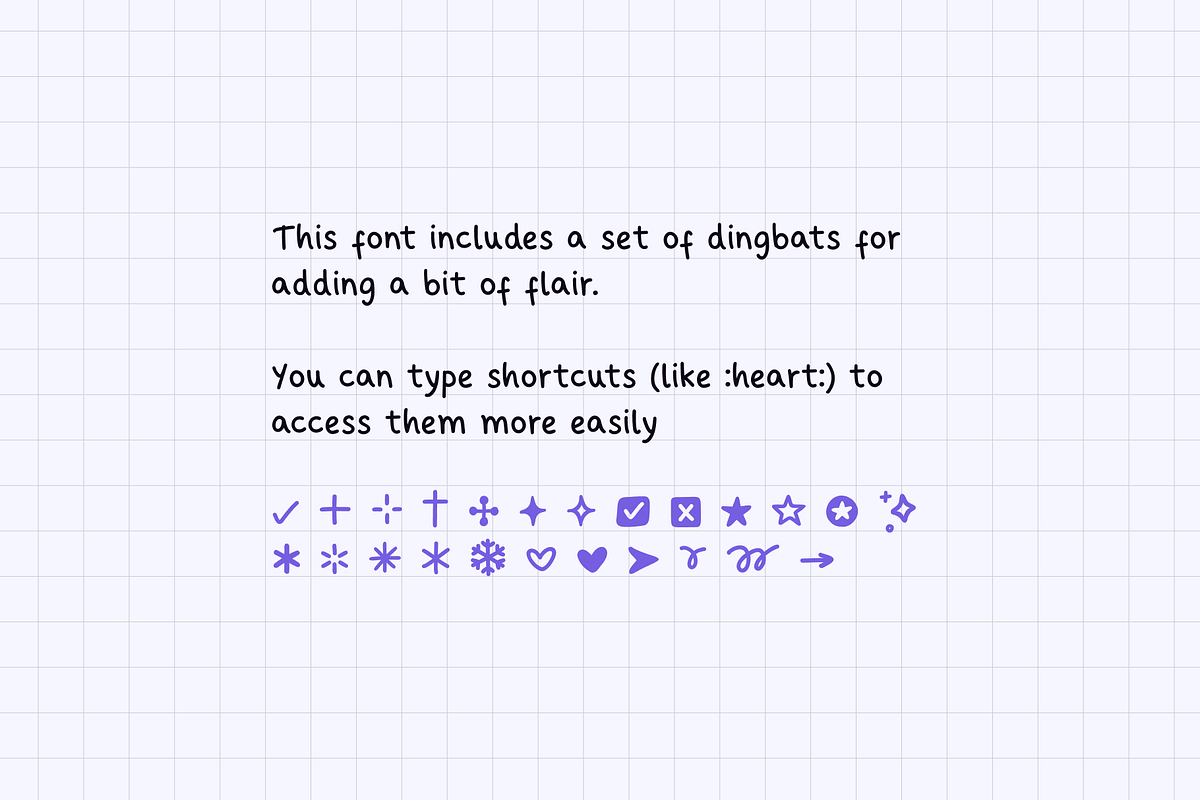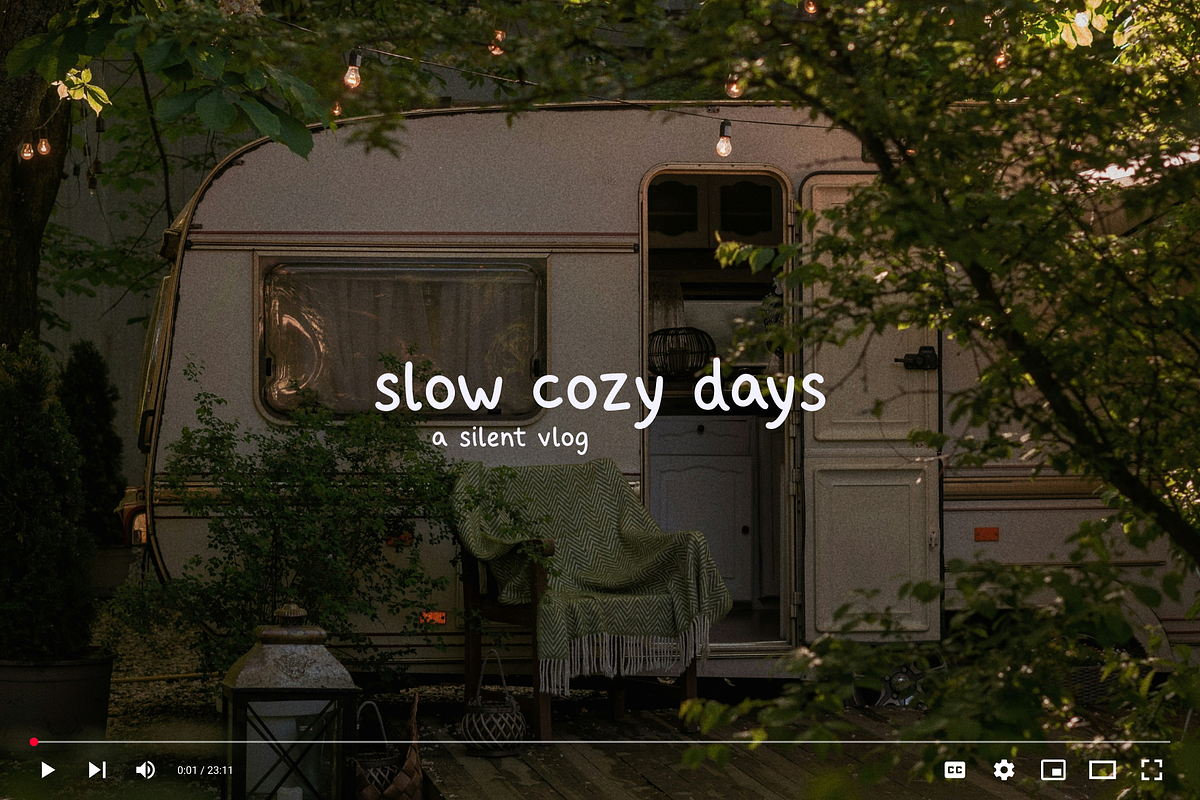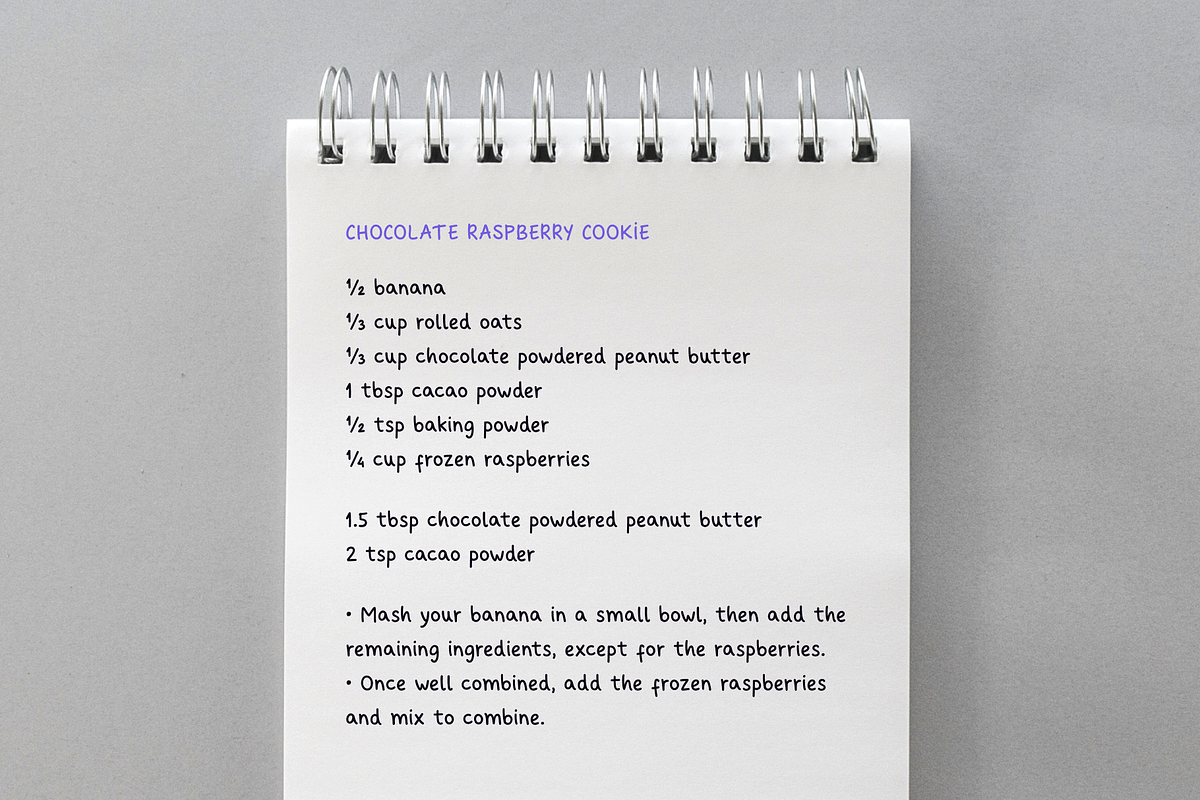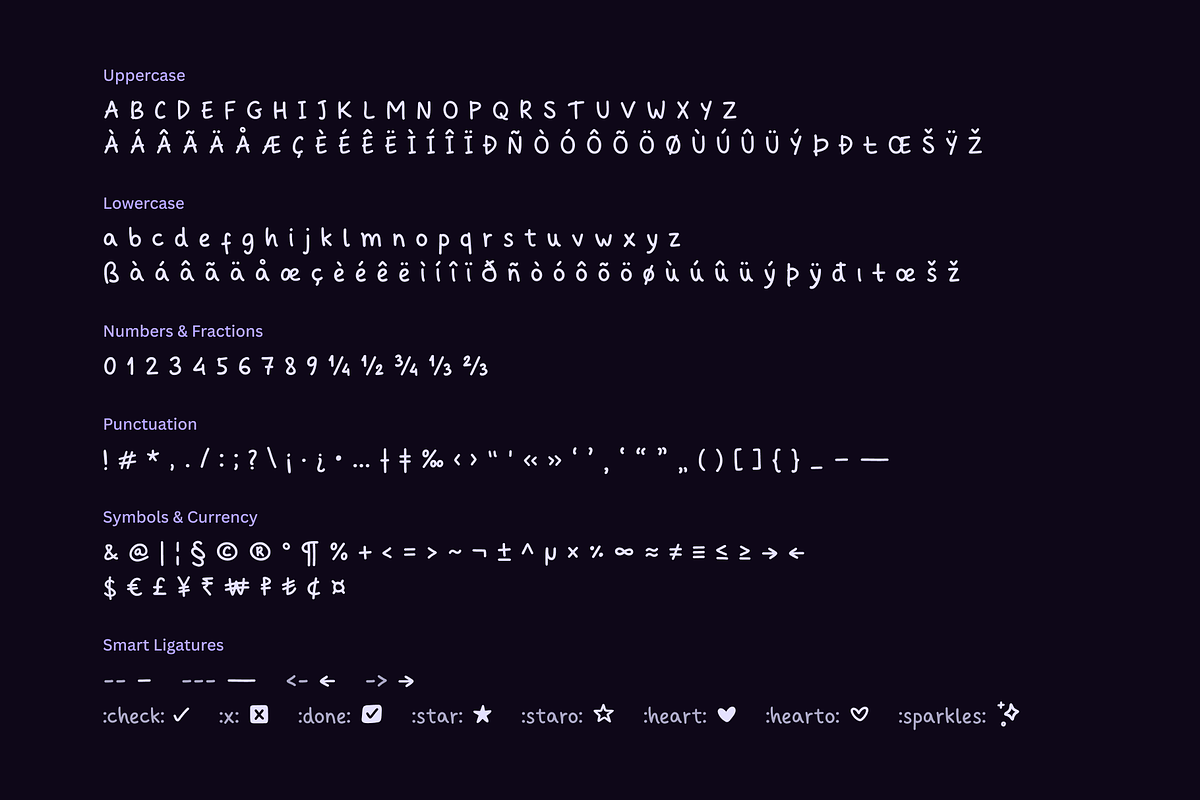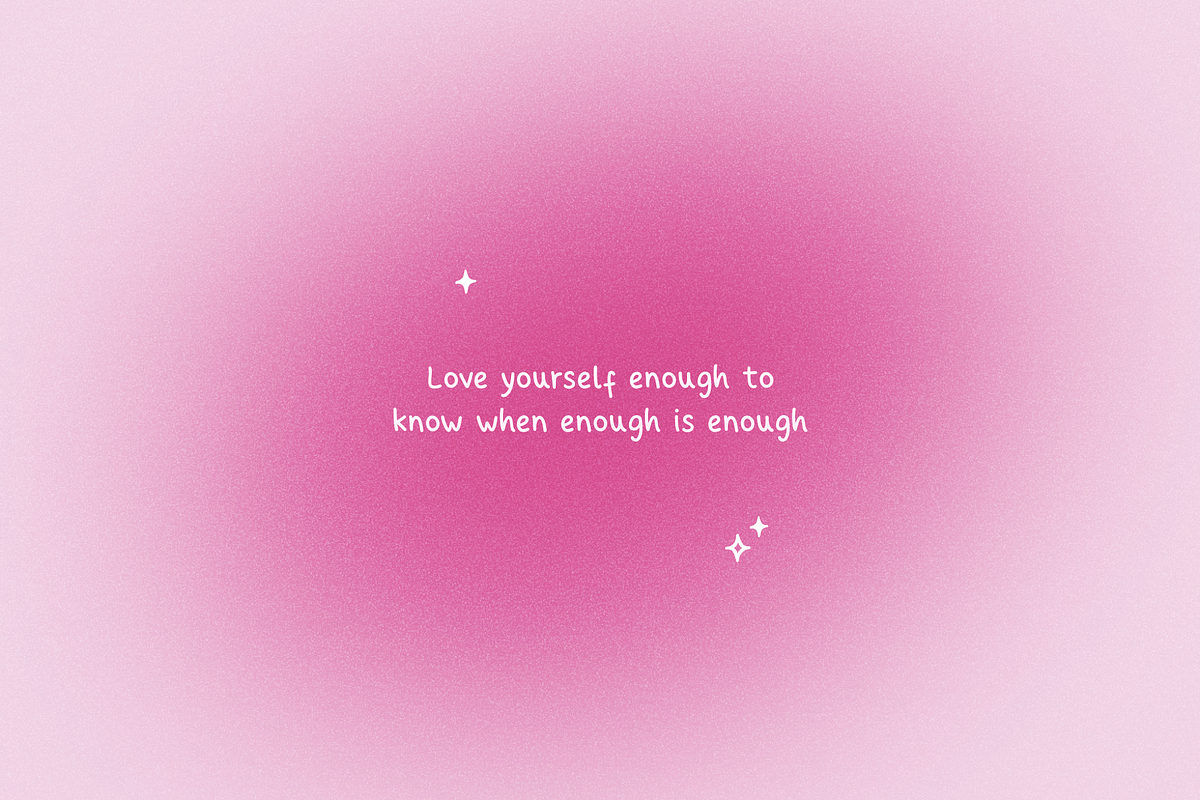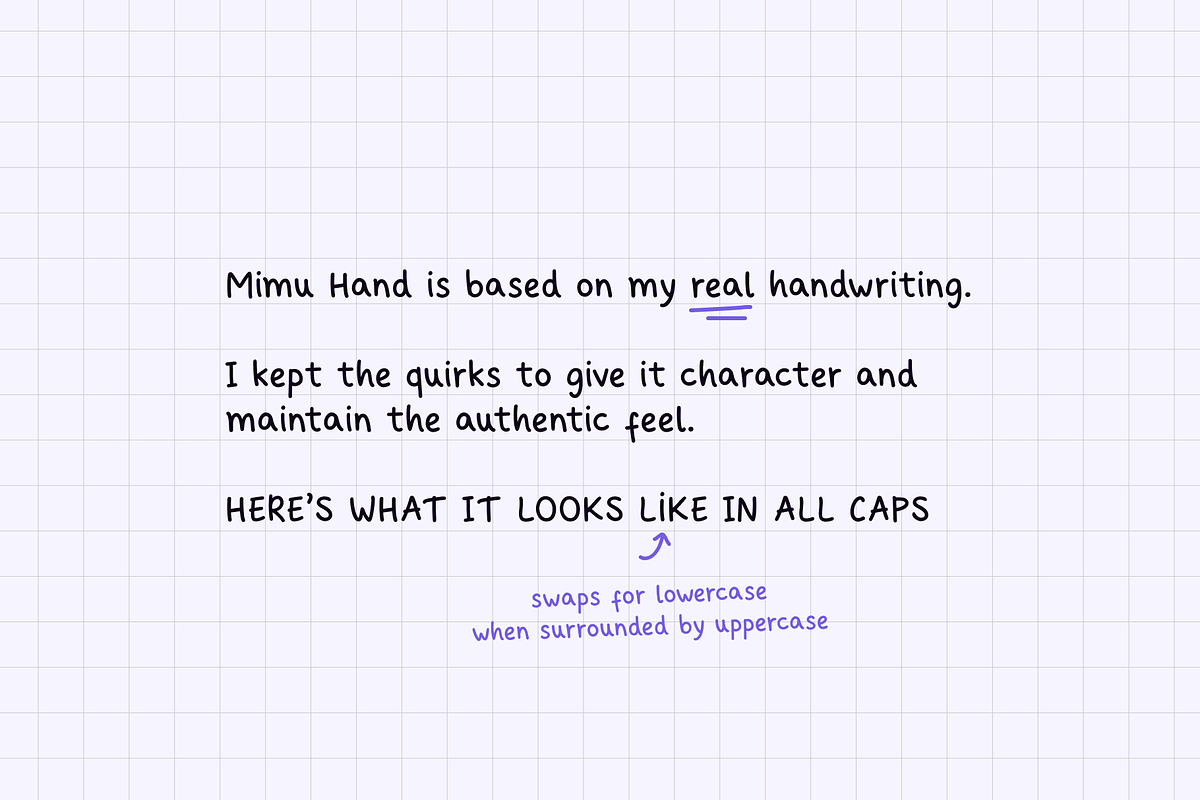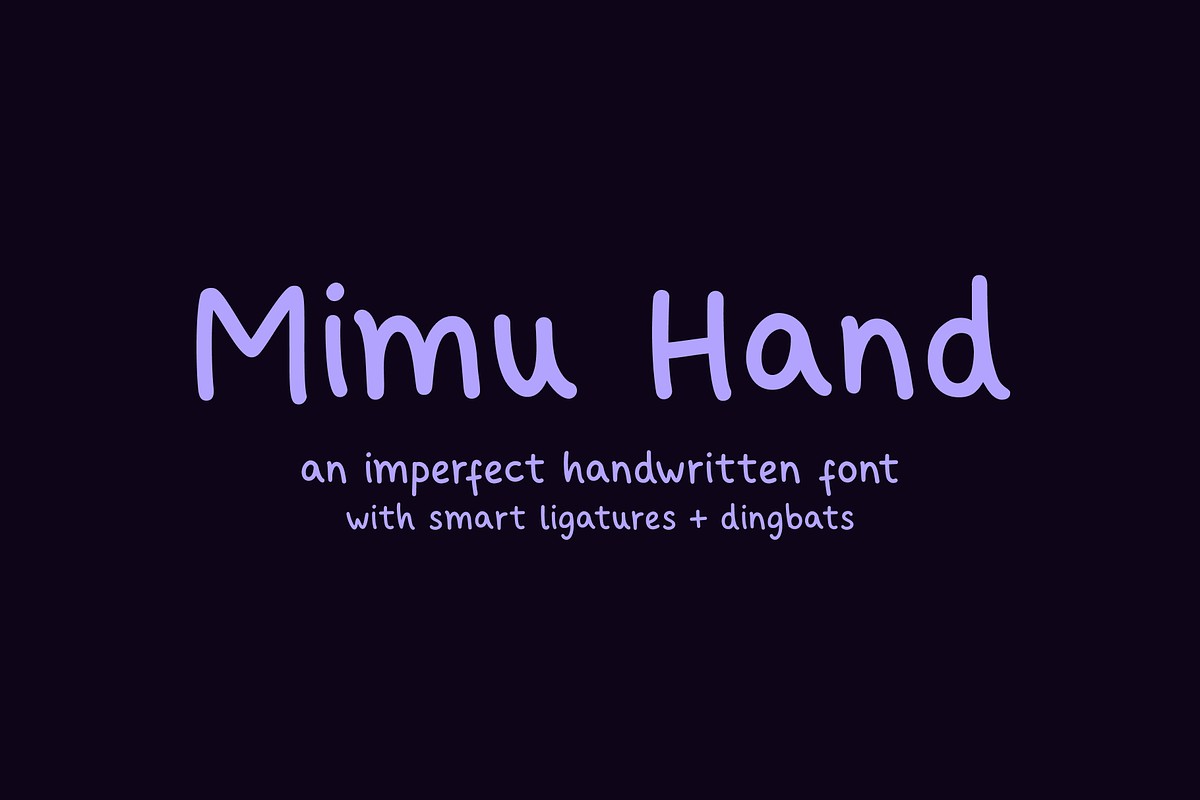
Mimu Hand Handwritten Font +Dingbats
Mimu Hand is a quirky handwritten font based on my real handwriting. Perfect for notes, planners, quotes, and anything that needs a touch of authenticity.
It includes 24 dingbats with smart ligatures that let you access them easily by typing intuitive shortcuts like :check: or :heart:
(Full list of shortcuts is shown in the preview images.)
This font supports extended Latin characters and over 60 languages, including English, French, Spanish, German, Portuguese, Italian, Dutch, Swedish, Norwegian, Finnish, Icelandic, Afrikaans, Swahili, and more.
Dingbat Symbols Included:
✓✙✛✝✣✦✧✅❎★✩✪✨✱✲✳✶❄♥❤➤➰➿➝
- Extended Latin accents for multilingual support
- Smart ligatures for easy symbol shortcuts